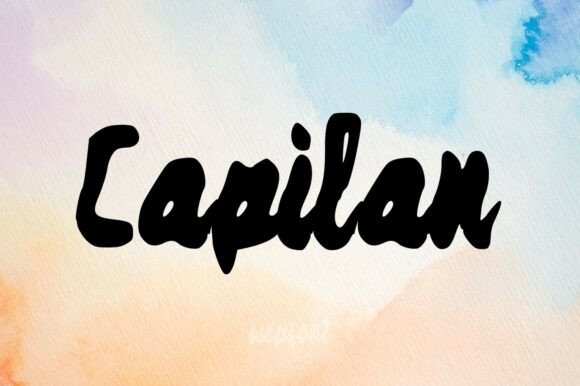
Discover the Enchanting Charm of Capilan Font
Have you ever been in the midst of working on a design project, only to find yourself stuck on one thing: the perfect font? I recall a particularly frustrating experience when a client requested a font that was both artistic and highly legible for their new brand identity. After scouring through countless options, I stumbled upon Capilan Font, and it was love at first sight! 💫
Capilan is a lively, hand-rendered script font that injects pure artistic vitality into the world of typography. Its sweeping strokes and flowing ease are reminiscent of an artist’s brush gliding over a blank canvas. This font champions excellent legibility, and its confident execution is a clear testament to skillful artistry.
An Honest Review of Capilan Font
What I Love About Capilan ✨
- ✅ Exceptional legibility, making it perfect for body text and headlines
- ✨ Unique, artistic flair that adds a touch of personality to any design
- 💻 Versatile and suitable for a wide range of design projects, from branding to social media graphics
- 🎨 Beautifully crafted with swift precision and human warmth
- ⚠️ Some users may find the font’s spontaneity and slight unpredictability in baseline alignment challenging to work with
- ⚠️ Limited availability of certain OpenType features in certain software or platforms
The Backstory of Capilan Font
Capilan Font was designed by a talented typographer who drew inspiration from the world of art and design. With a passion for creating unique and artistic fonts, the designer spent countless hours perfecting the craft of Capilan. The result is a font that is both beautiful and functional, with a unique personality that sets it apart from other fonts.
| Font Name | Capilan Font |
| Author | wep – Wahyu Eka Prasetya |
Q: What makes Capilan Font unique?
A: Capilan Font is unique due to its hand-rendered, artistic feel and exceptional legibility. Its sweeping strokes and flowing ease make it perfect for designs that require a touch of personality and creativity.
Q: Is Capilan Font suitable for body text?
A: Yes, Capilan Font is highly legible and suitable for body text. However, it may be more effective as a display font or for use in headlines and titles.